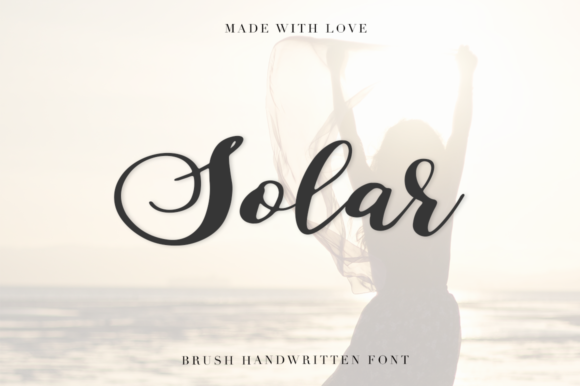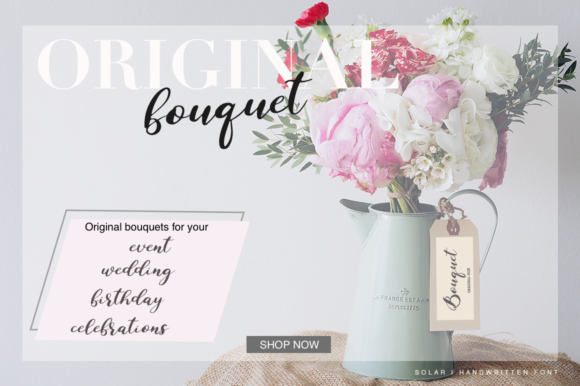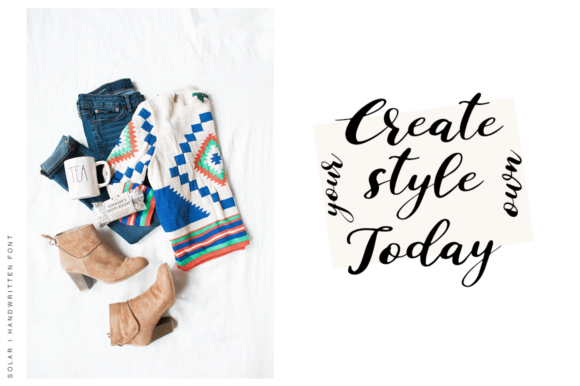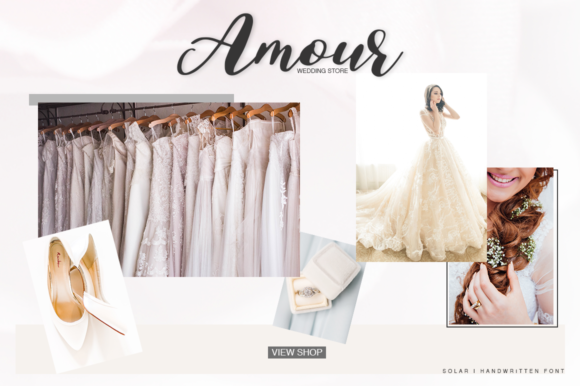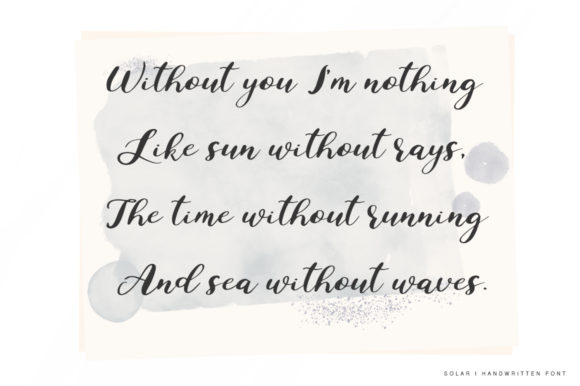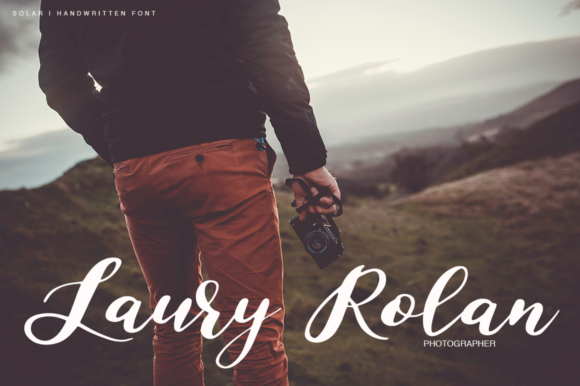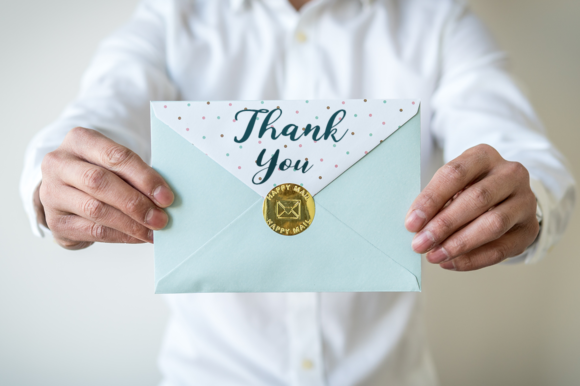
Solar Font
About Solar Font
Solar is a beautiful brushy font, ideal for decorative use in a wide range of projects. This font looks at home in invitations and other special event designs, and can give your works a homey appeal.